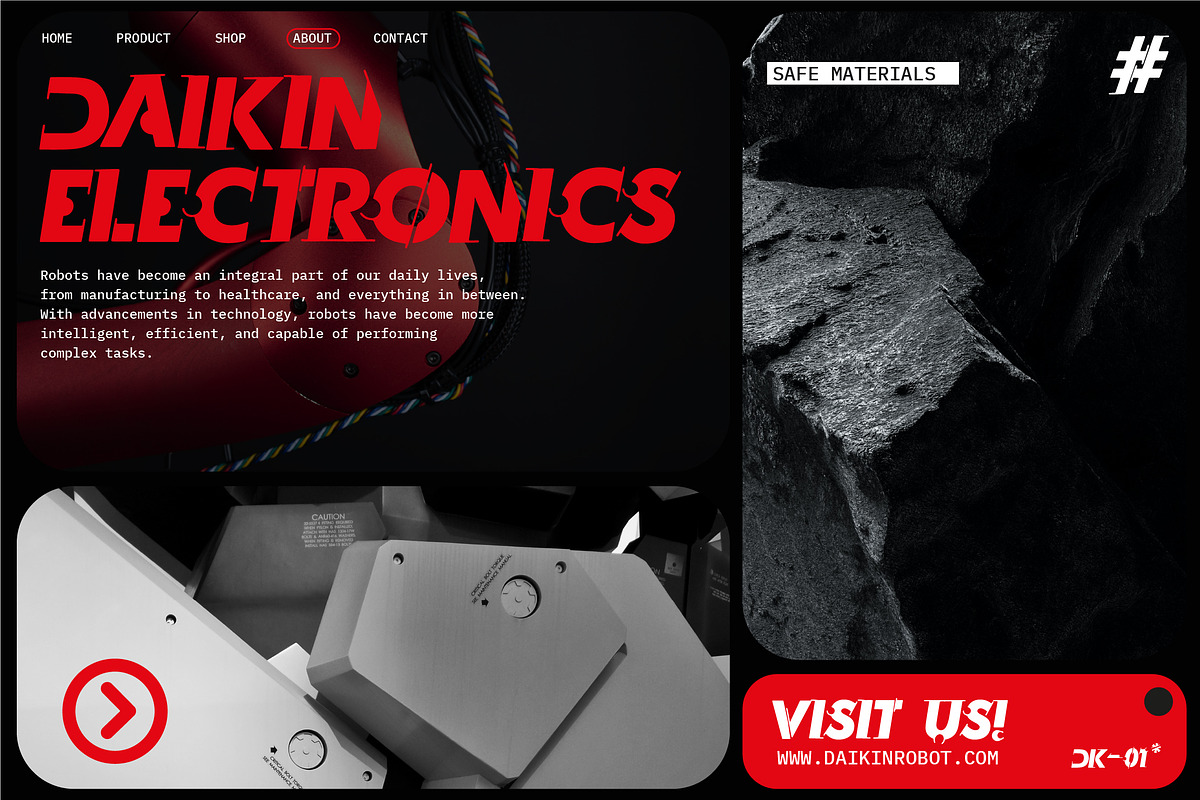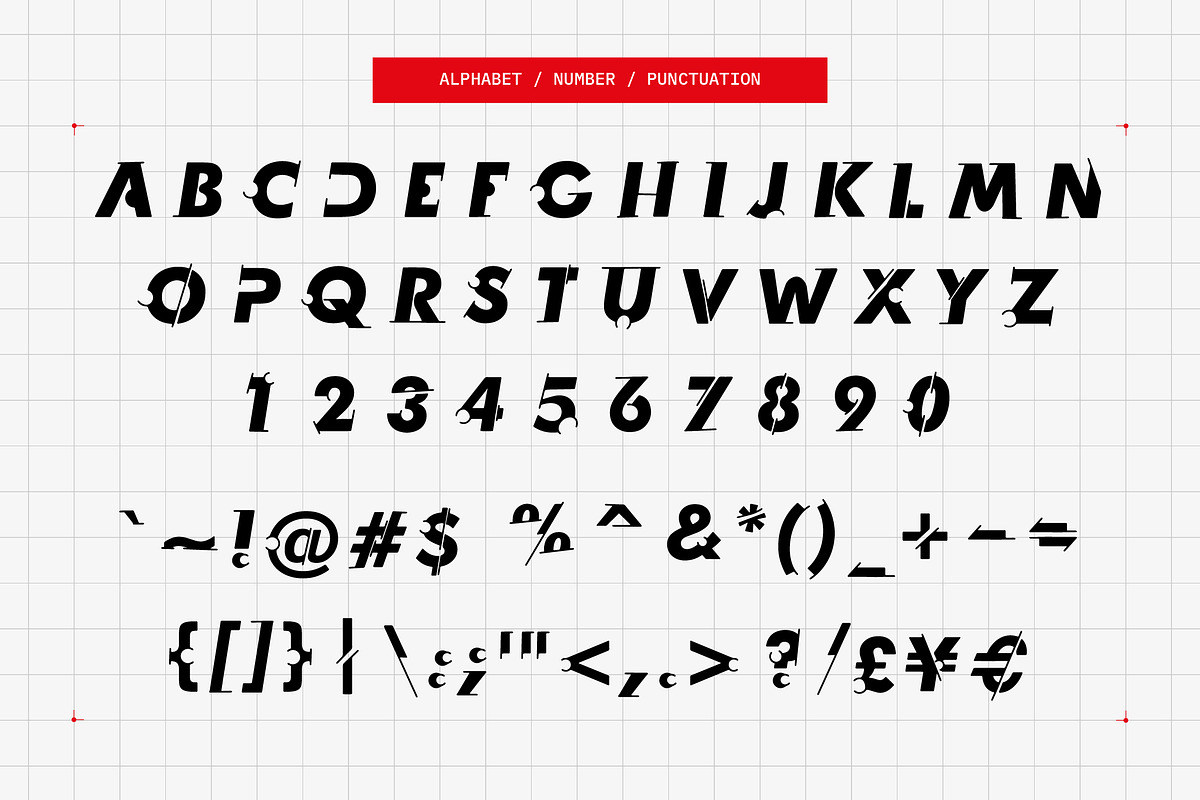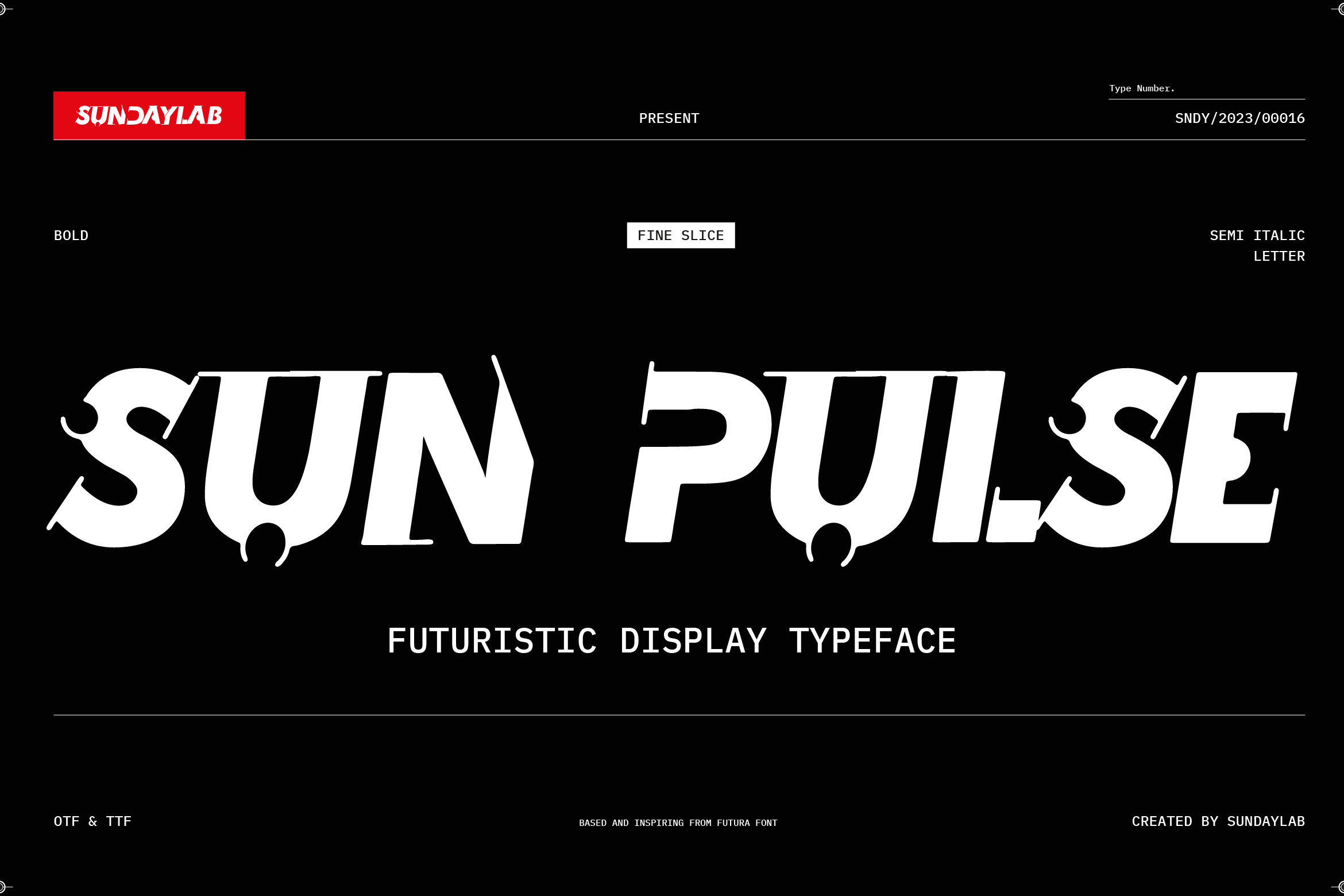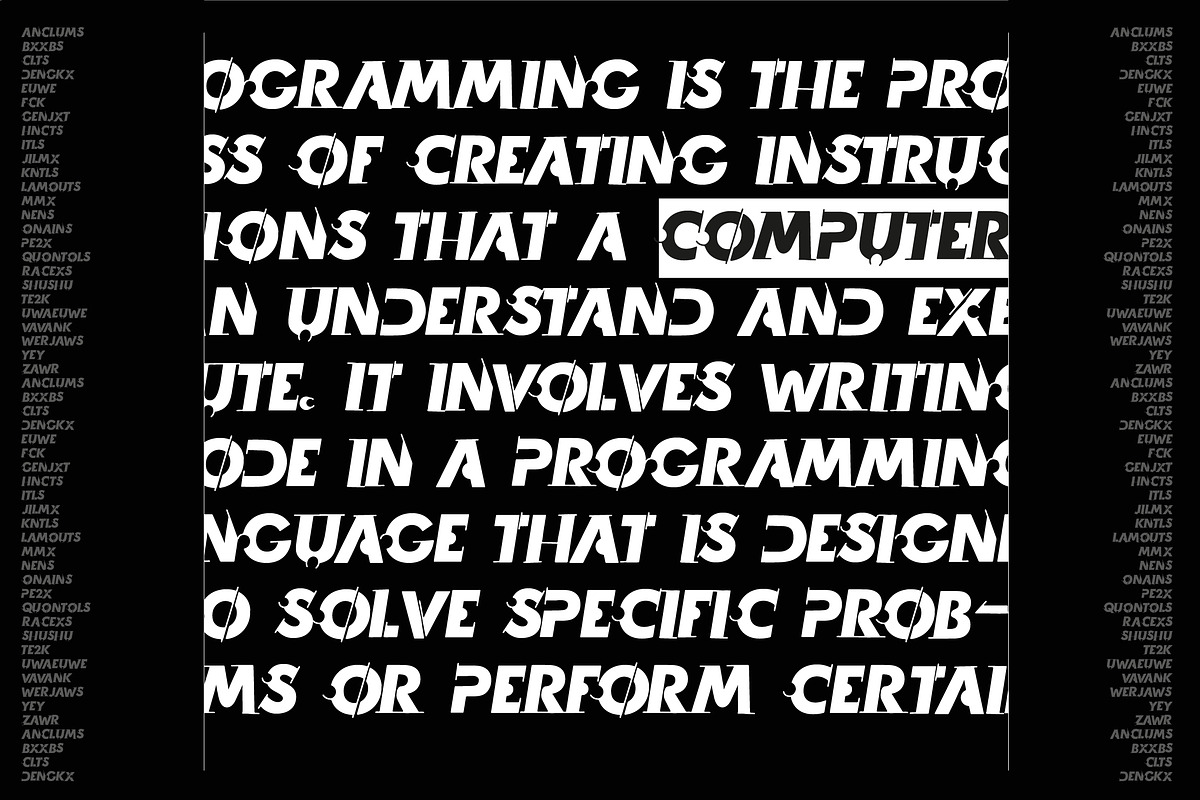
Sunpulse Futuristic Typeface
Introducing
Sunpulse Futuristic Typeface
Sunpulse is a display font that can help display messages in the designs you create. With its futuristic bold character, it is suitable for you to use on posters, flyers, magazine covers, books, vinyl, CDs, and many other media.